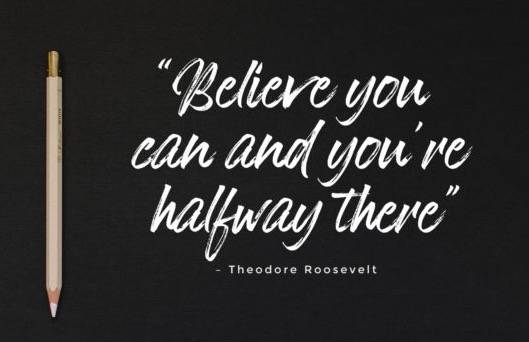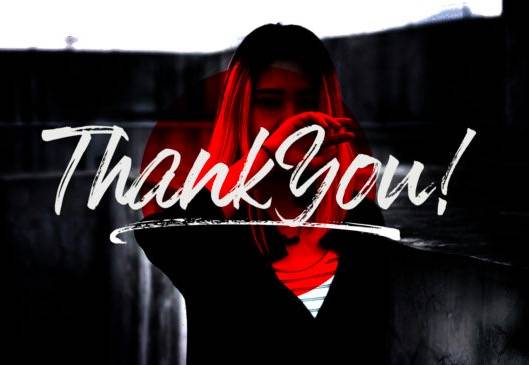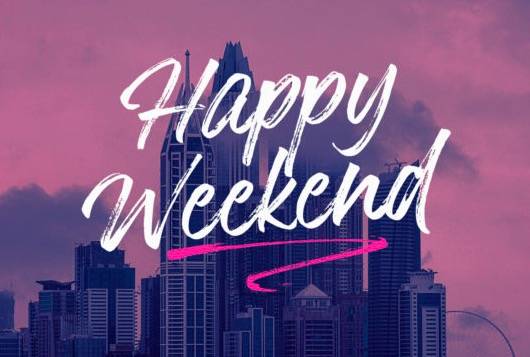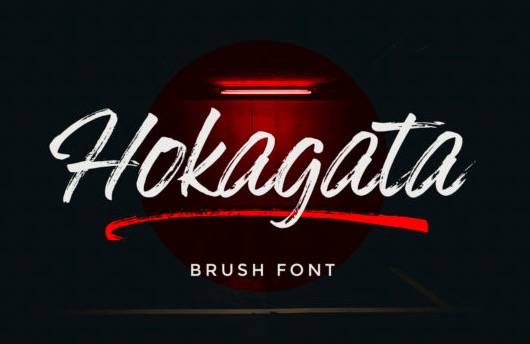
Hello guys! It’s time to introduce you to our modern font Hokagata, a script font created by Fargun Studio. Hokagata font is saucy, sweet, and a bit shabby. This is a new typeface brush letter.
Hokagata Script Font is a fancy script typeface with a stunning brush along with a hand-drawn appearance. This brush font gets too much popularity.
Along with an acute similarity with this handwritten font. Hokagata Font is ideal for extensive design approaches. And you can use this brush script font for various purposes such as in a poster, brochure, wedding, a brand logo, a cover layout, invitations cards, and more.